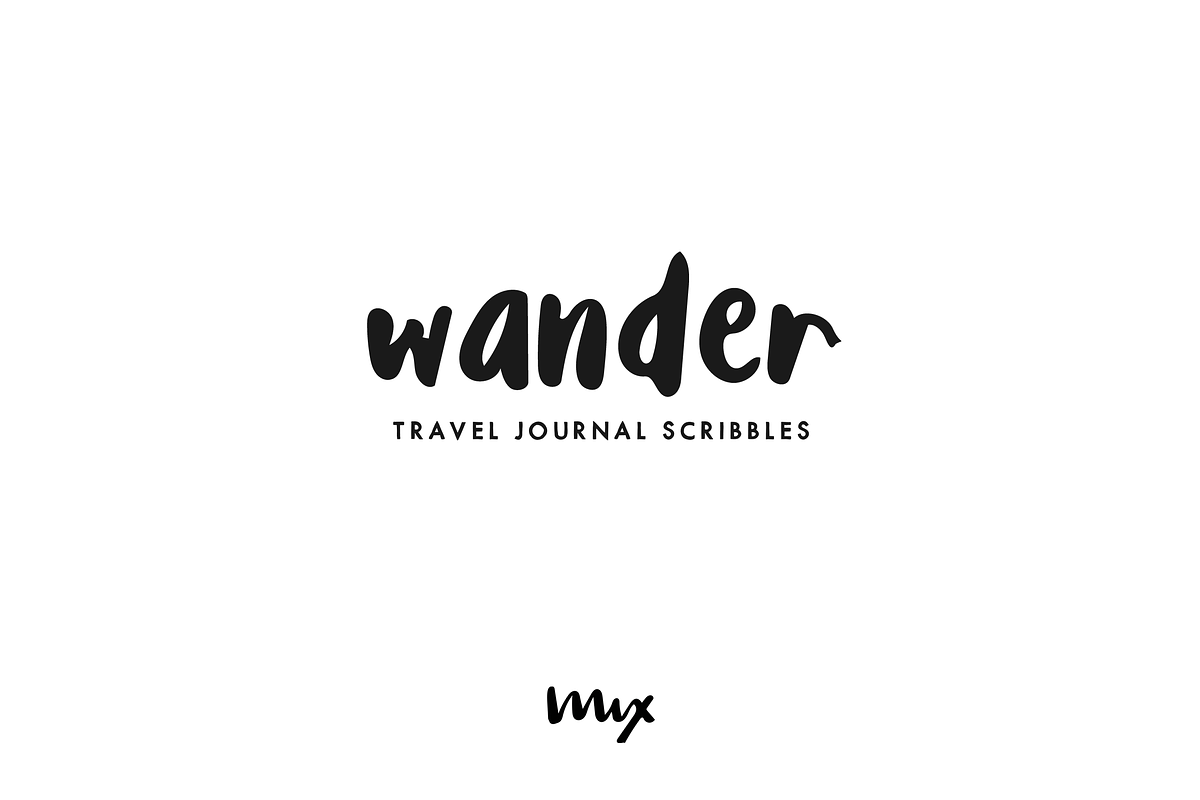
Wander — A Handwritten Font Free Download
Wander — A Handwritten Font Free Download captures the spirit of adventure and creativity with its relaxed, free-flowing style. Perfect for travel blogs, lifestyle branding, Instagram graphics, journals, and heartfelt quotes, this font brings a personal, down-to-earth touch to your designs. Its handwritten aesthetic feels authentic and warm, just like a note scribbled on a postcard from your latest journey.
The irregular strokes and natural rhythm give Wander its charm, making it ideal for both digital and print use where a casual, human feel is desired. It's easy to read yet full of personality—exactly what you need for storytelling and expressive visuals.